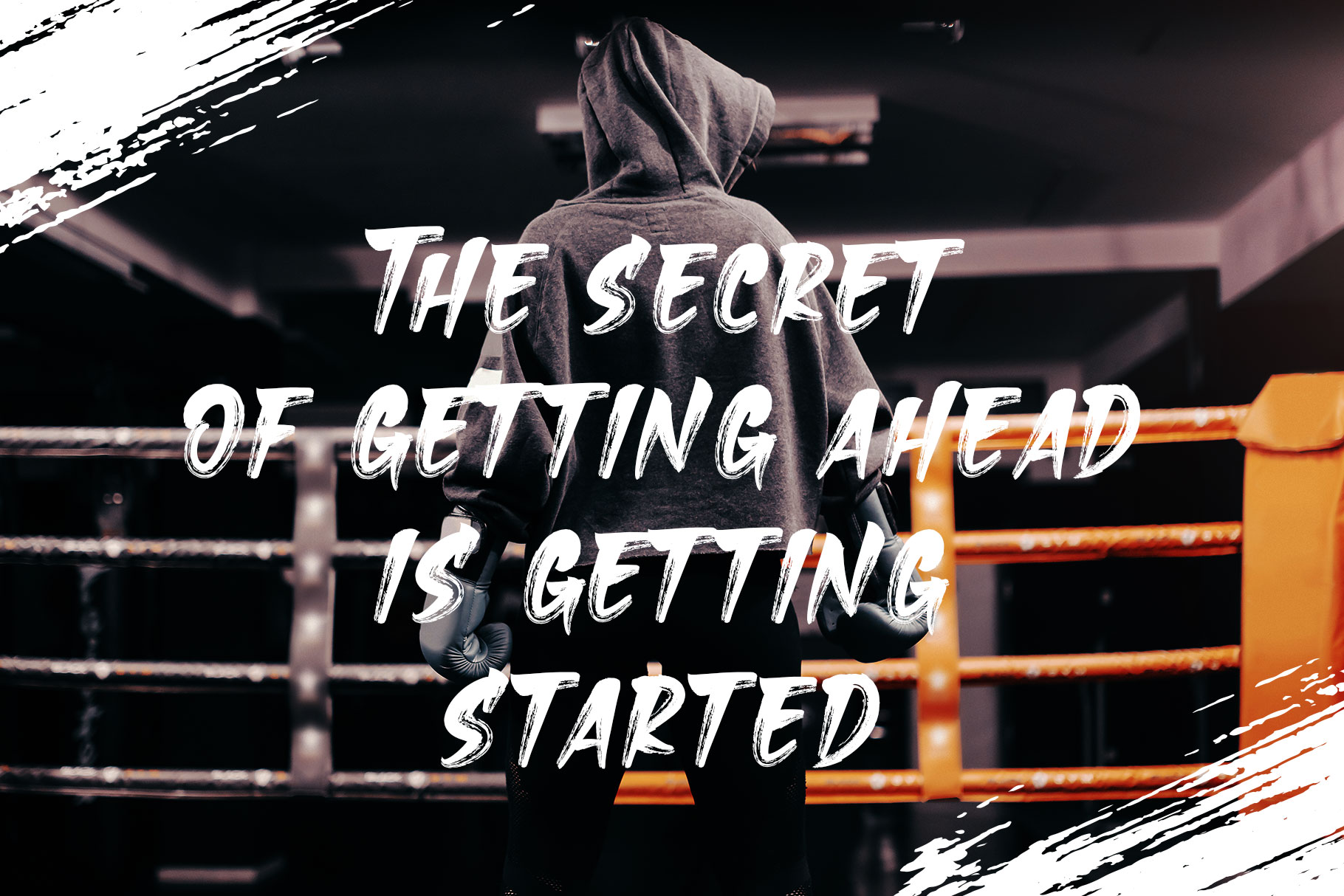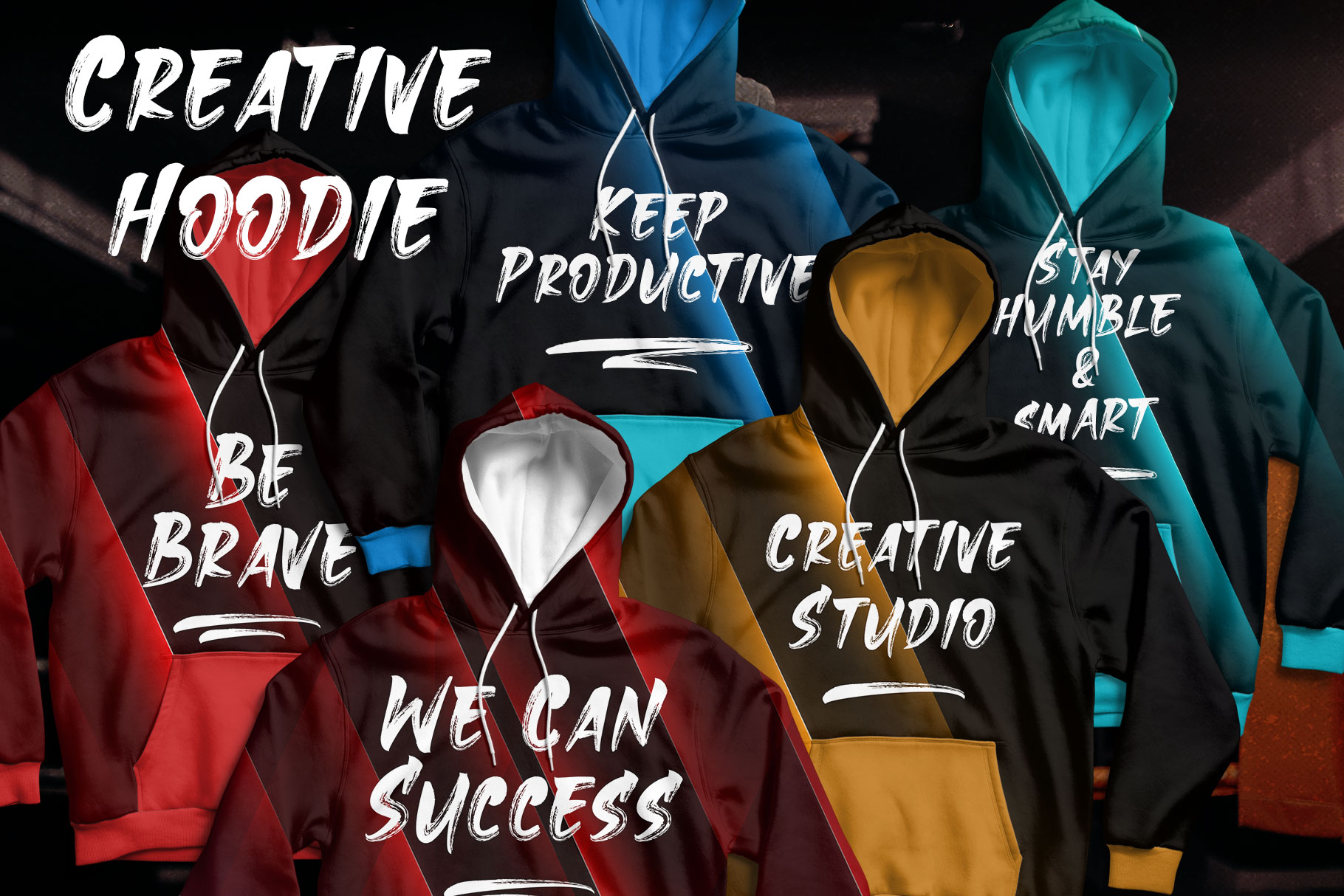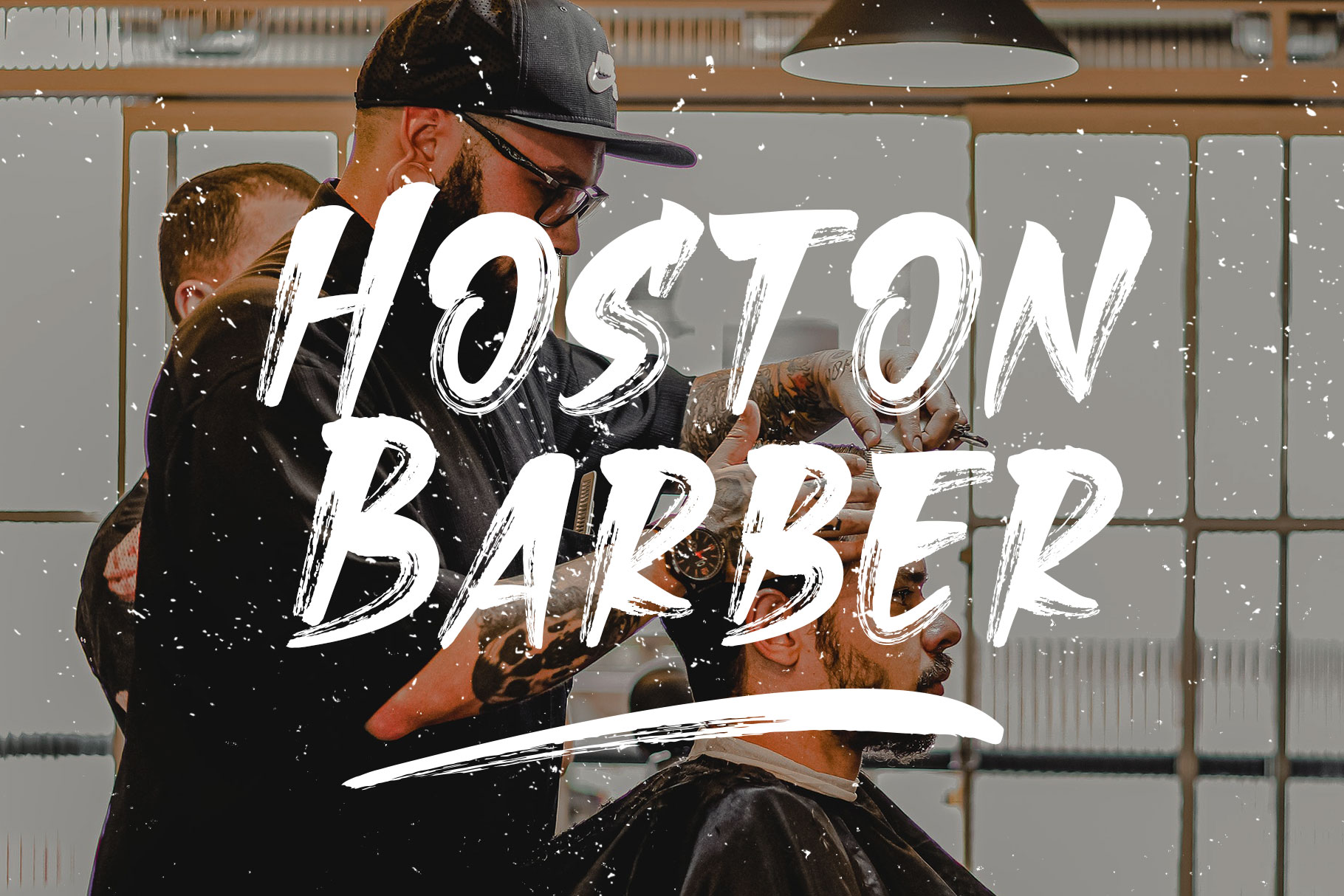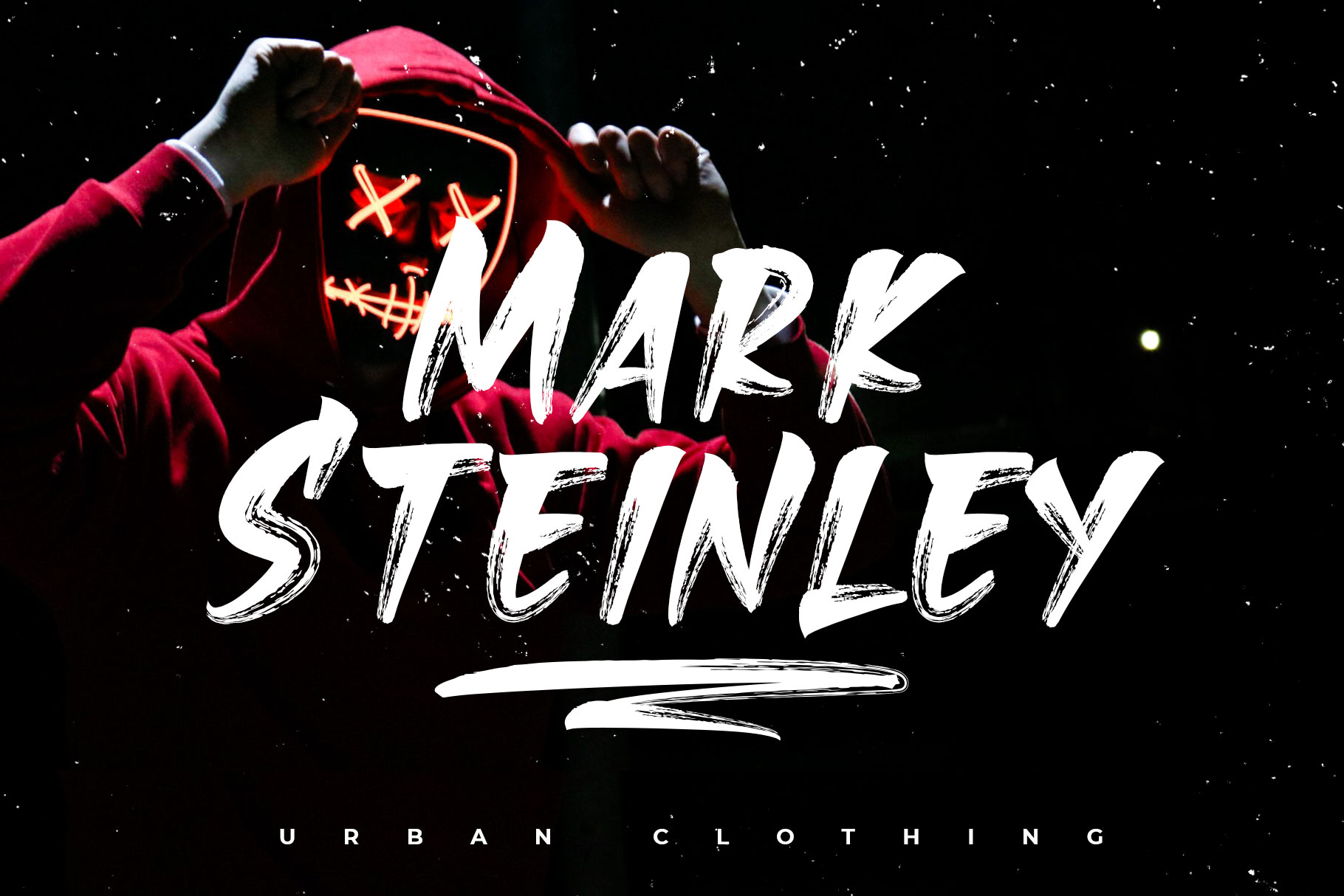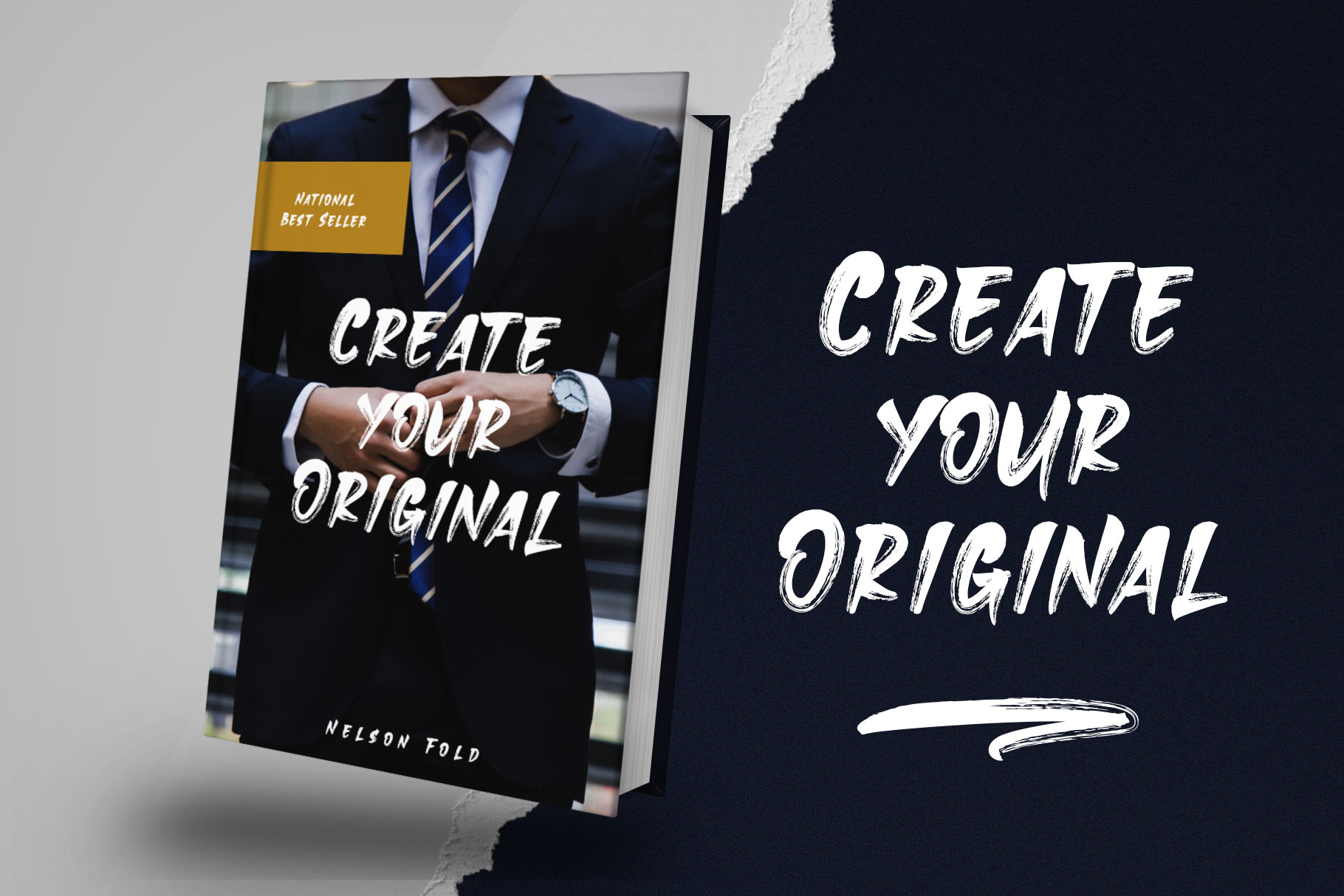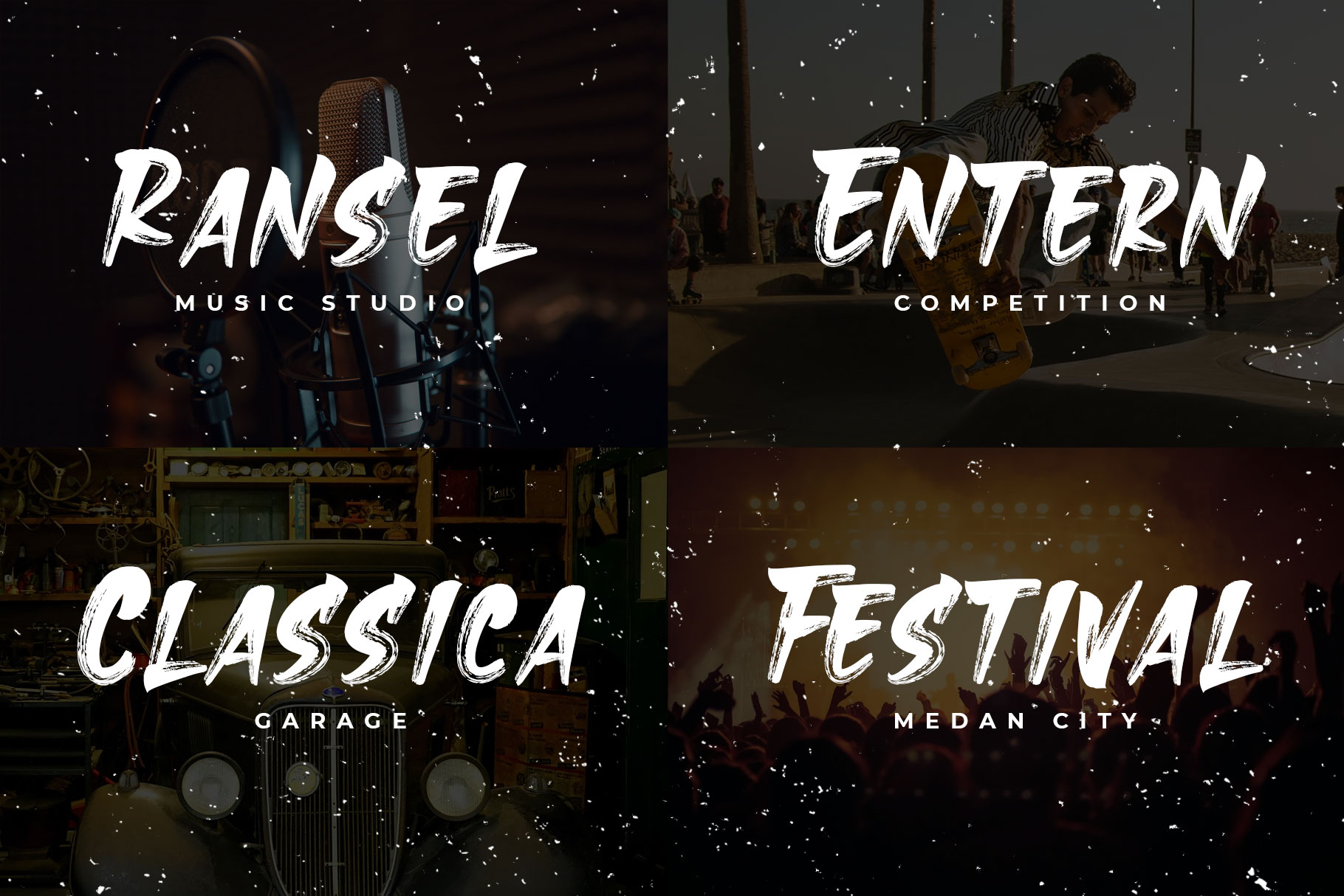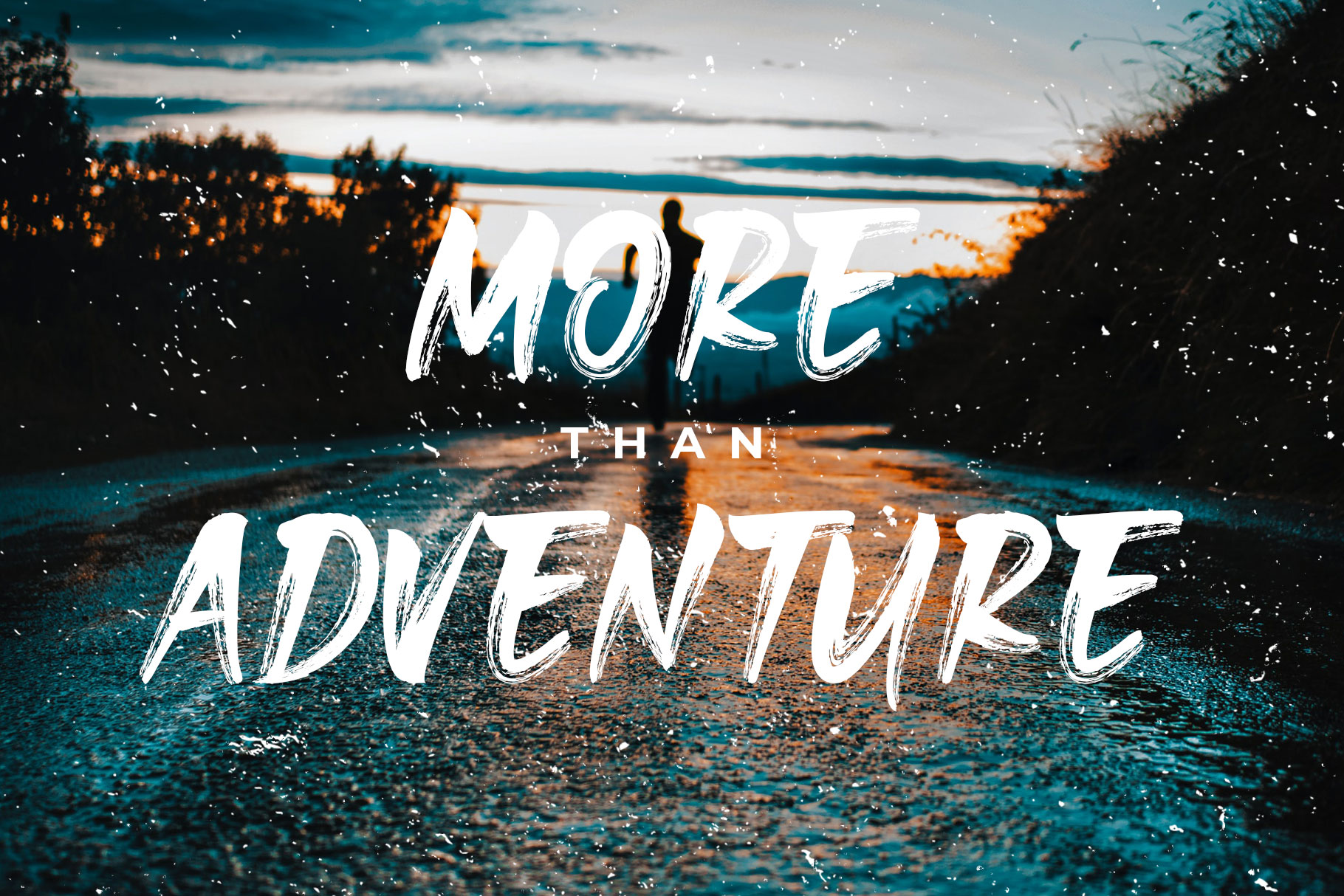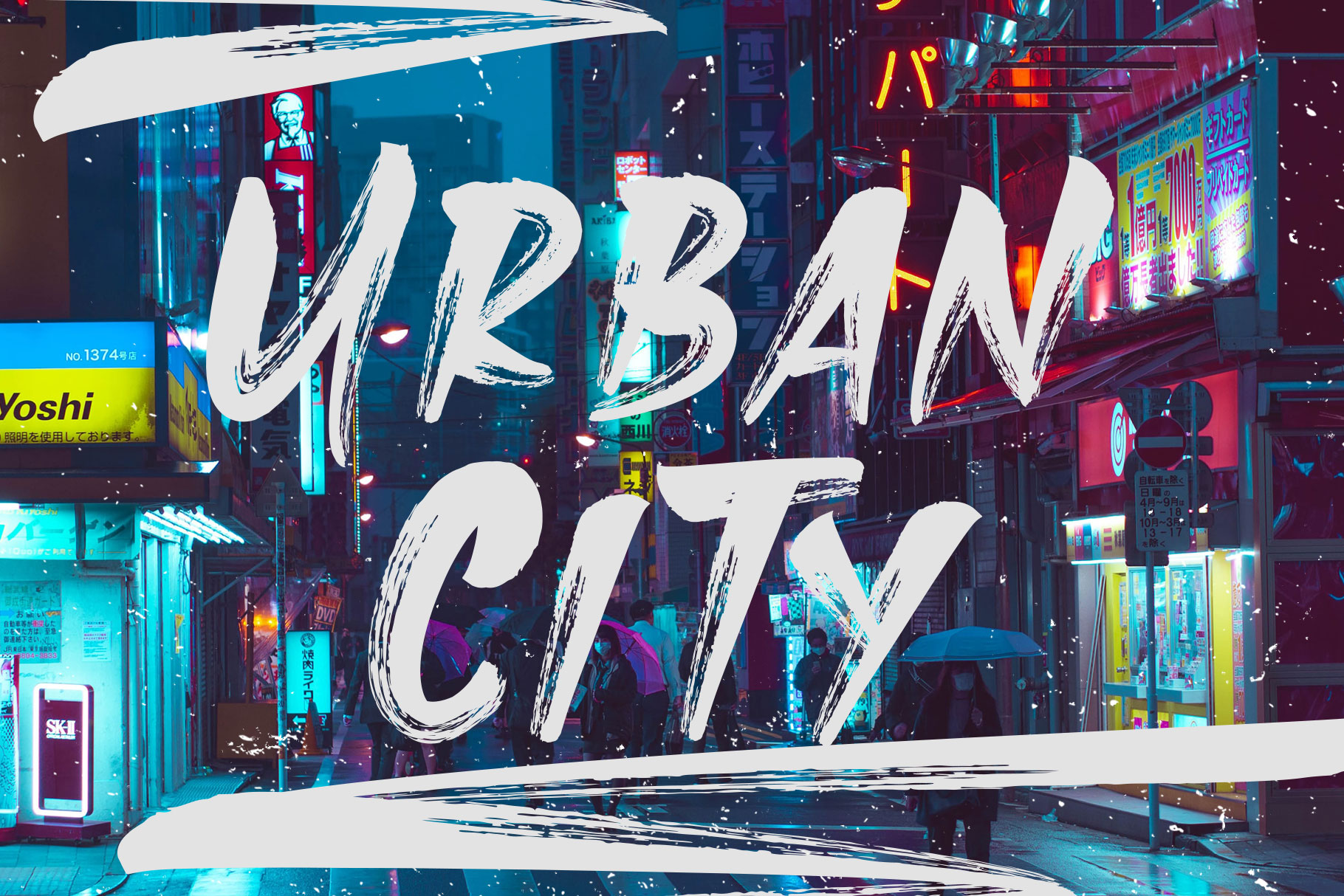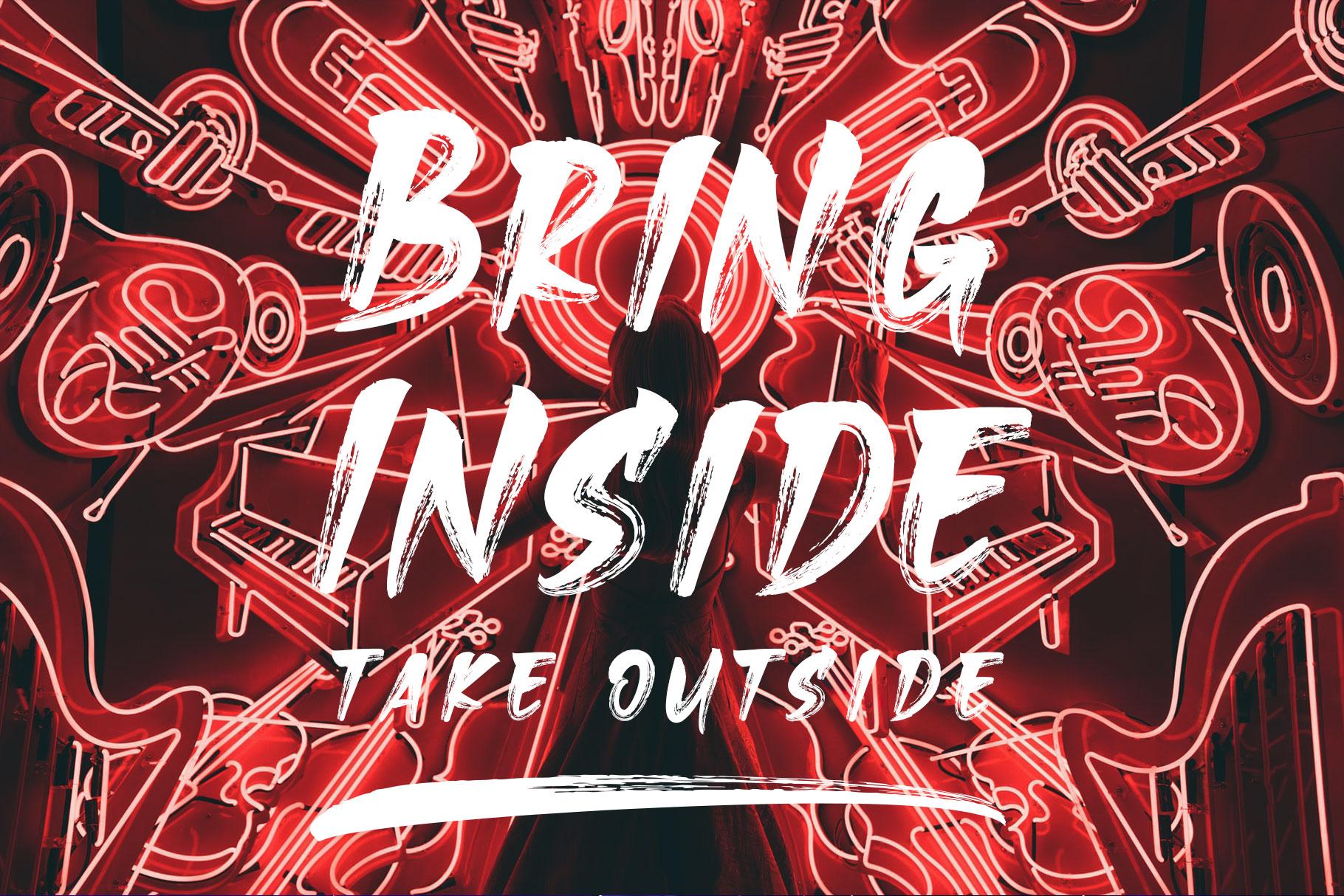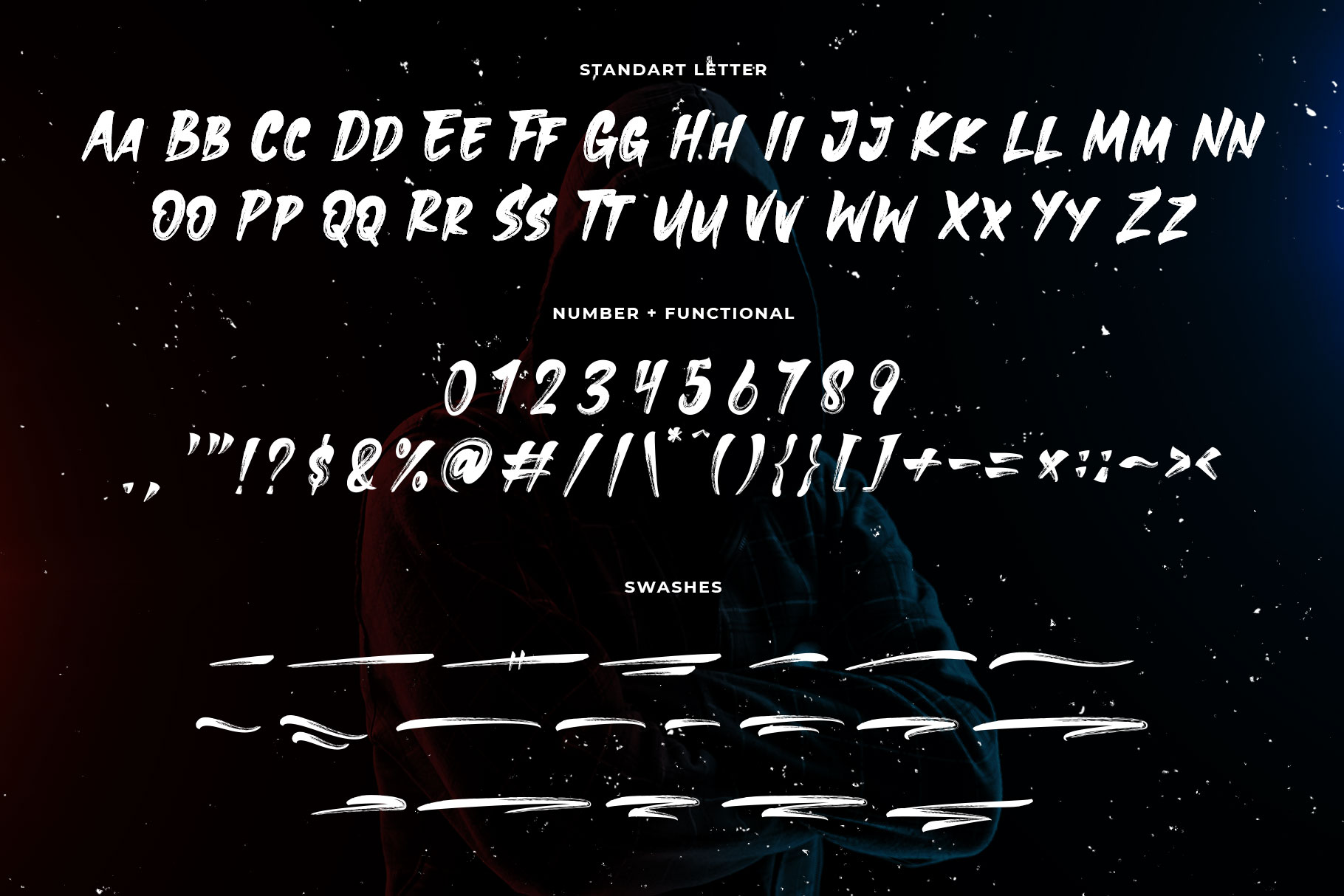
Mandhor Brush Font
Mandhor is authentic hand brush imperfections. It has a perfectly paired complimentary marker font and a super handy set of bonus Swash. We keep this font looks modern, readable, stylish, strong, cool, bold, catchy and easy to use. Mandhor  is the great choice for watermark on photography, logo design, quotes, album cover, magazine,tshirt and many other design project. Mandhor here to make your work to high level!!!
• Swash